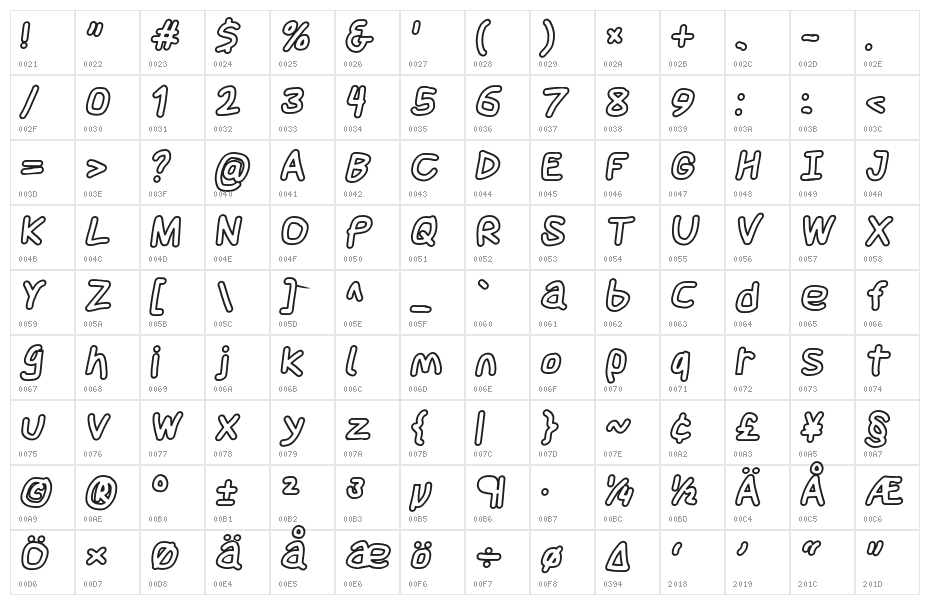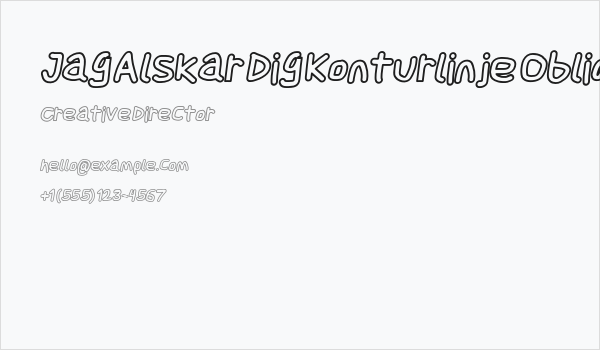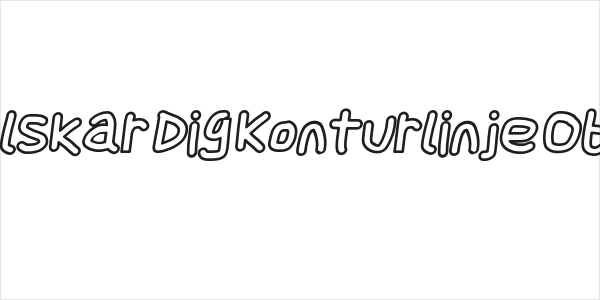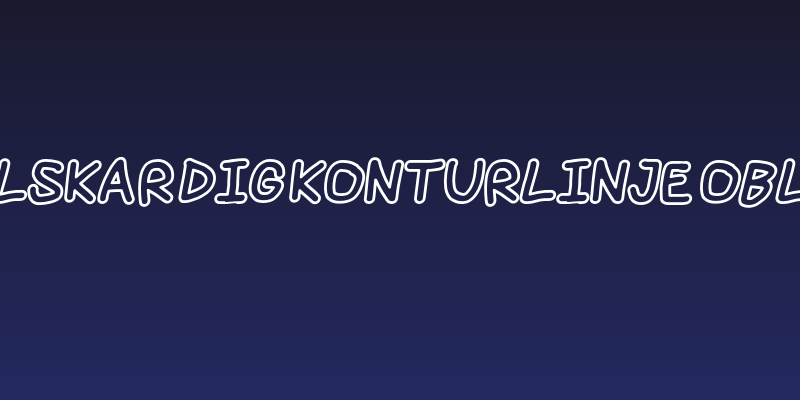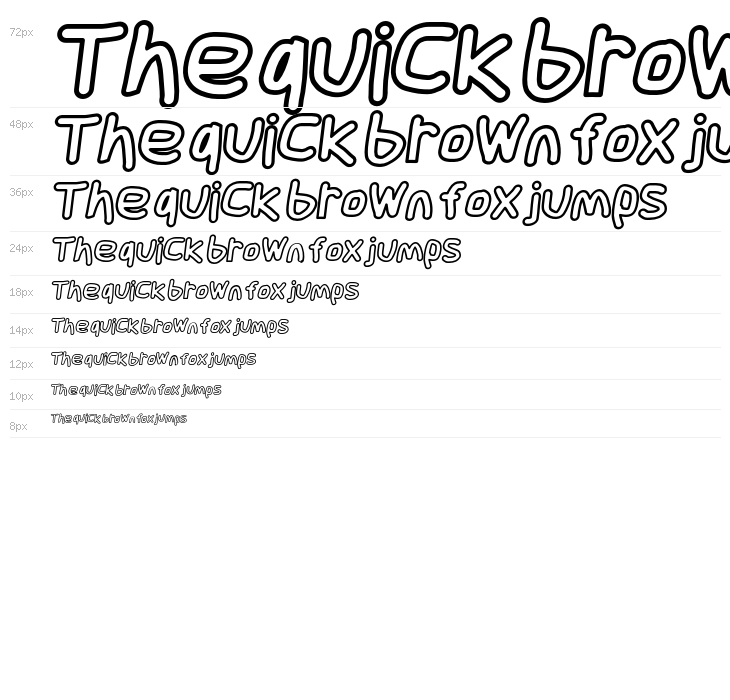
Jag Alskar Dig Konturlinje Oblique Font
Jag Alskar Dig Konturlinje Oblique Description
This playful and bold font features a unique outline style that gives each character a distinct, hand-drawn appearance. The letters are slightly oblique, adding a dynamic and informal touch. The uppercase and lowercase letters maintain a consistent style, with rounded edges and a uniform thickness that enhances readability. The numbers and special characters are designed to match the whimsical feel of the alphabet, making this font suitable for creative and fun projects. Its outlined nature makes it stand out, perfect for eye-catching designs.
| Overall Style | Playful, Hand-drawn |
| Proposed Projects | Ideal for children's books, playful branding, posters, and creative invitations. |